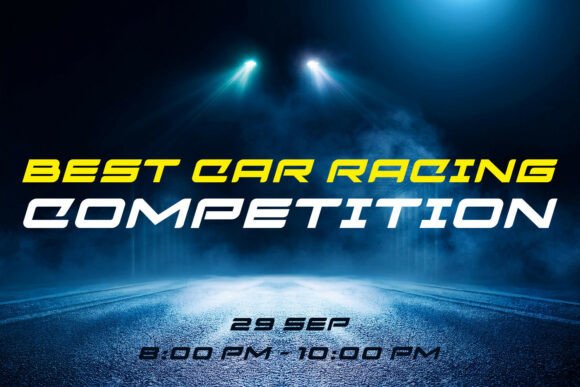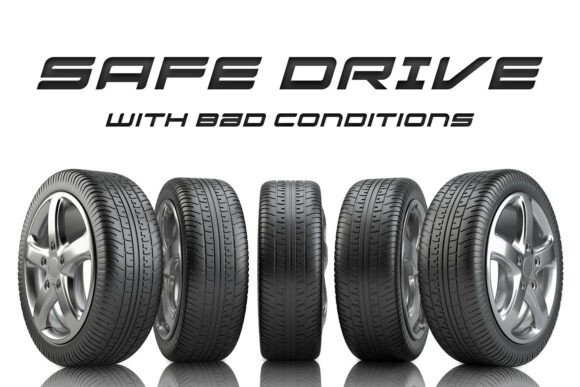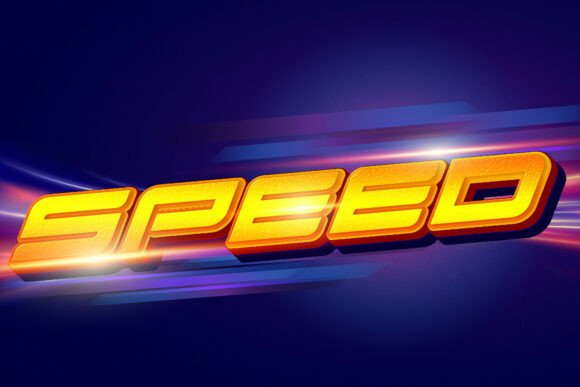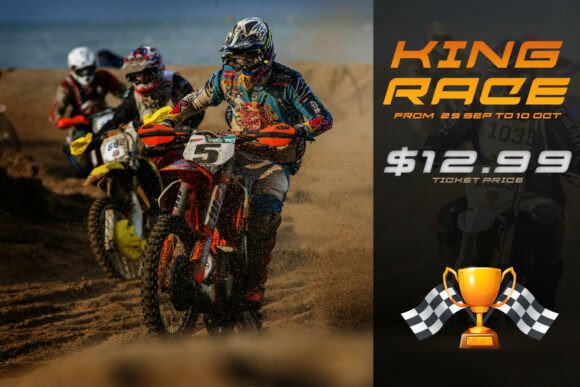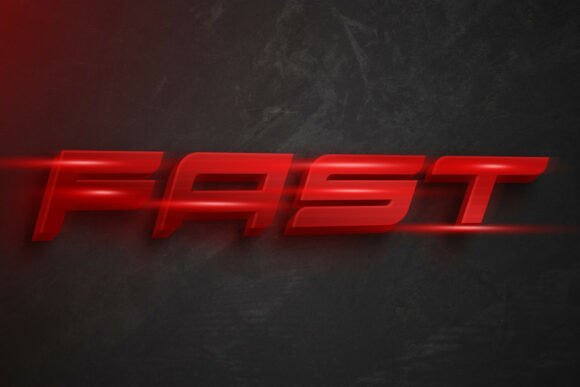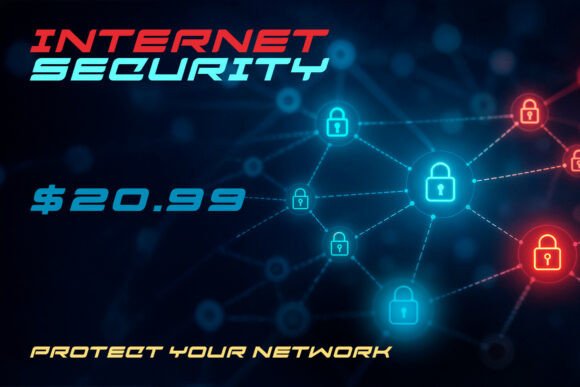
Aerox Font: Elevate Your Designs with a Futuristic Geometric Typeface
In the realm of typography, a font can make or break the visual identity of a design project. For designers and crafters seeking a typeface that embodies motion, speed, and a futuristic aesthetic, Aerox Font is an exceptional choice. This geometric, slanted display font is specifically designed to capture the essence of dynamism and modernity, making it perfect for impactful headlines, automotive graphics, esports logos, technology interfaces, and industrial branding projects.
Design Characteristics of Aerox Font
Aerox Font boasts a unique combination of design characteristics that set it apart from other typefaces. Its italicized structure, sharp angles, and wide proportions create a sense of movement and energy, evoking the feeling of speed and agility. The font features a consistent stroke weight, which adds to its sleek and modern appearance. This consistency also ensures that the text remains legible, even at larger font sizes.
Key Features of Aerox Font
- Geometric and Slanted Design: The font’s geometric design and slanted structure give it a dynamic and futuristic look, perfect for designs that require a sense of motion and energy.
- Sharp Angles and Wide Proportions: The sharp angles and wide proportions of Aerox Font make it stand out from other typefaces, adding to its modern and sleek appearance.
- Standard Uppercase Letters and Stylized Lowercase Alternatives: The font includes standard uppercase letters alongside stylized lowercase alternatives, providing a unique touch to your designs.
- Comprehensive Punctuation Marks and Numbers: Aerox Font features comprehensive punctuation marks and numbers, making it a functional choice for a wide range of design projects.
Use Cases for Aerox Font
Aerox Font is a versatile typeface that can be used in various design projects, including:
- Impactful Headlines: The font’s bold and dynamic design makes it perfect for creating attention-grabbing headlines that demand attention.
- Automotive Graphics: Aerox Font’s futuristic aesthetic and sense of speed make it an excellent choice for automotive graphics, such as car logos, billboards, and magazine ads.
- Esports Logos: The font’s modern and sleek design makes it a popular choice for esports logos, adding a touch of professionalism and dynamism to team branding.
- Technology Interfaces: Aerox Font’s clean and legible design makes it suitable for technology interfaces, such as software UI, app designs, and website headers.
- Industrial Branding Projects: The font’s geometric design and sharp angles make it a great fit for industrial branding projects, such as manufacturing logos, product labels, and company signage.
Why Choose Aerox Font?
Aerox Font offers a unique combination of style, functionality, and versatility, making it an excellent choice for designers and crafters. Here are some reasons why you should consider using Aerox Font in your next design project:
- Unique and Memorable: Aerox Font’s futuristic aesthetic and dynamic design make it a memorable and impactful typeface that will leave a lasting impression on your audience.
- Highly Legible: The font’s consistent stroke weight and clean design ensure that it remains legible, even at larger font sizes.
- Versatile: Aerox Font can be used in a wide range of design projects, from automotive graphics to technology interfaces, making it a valuable addition to your typography collection.
In conclusion, Aerox Font is a geometric, slanted display font that embodies motion, speed, and a futuristic aesthetic. Its unique design characteristics, key features, and versatility make it an excellent choice for designers and crafters seeking to elevate their designs. Whether you’re working on impactful headlines, automotive graphics, esports logos, technology interfaces, or industrial branding projects, Aerox Font is a functional and stylish choice that will help you achieve your design goals.